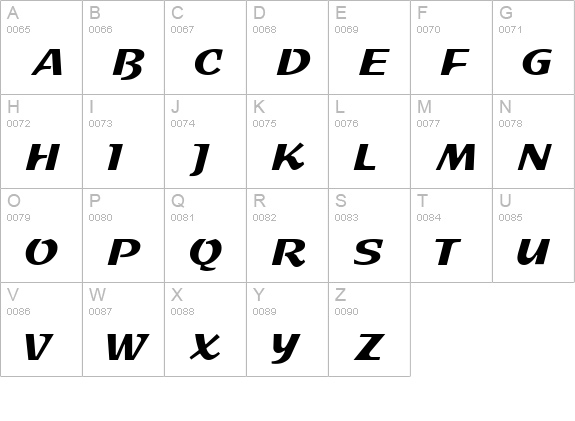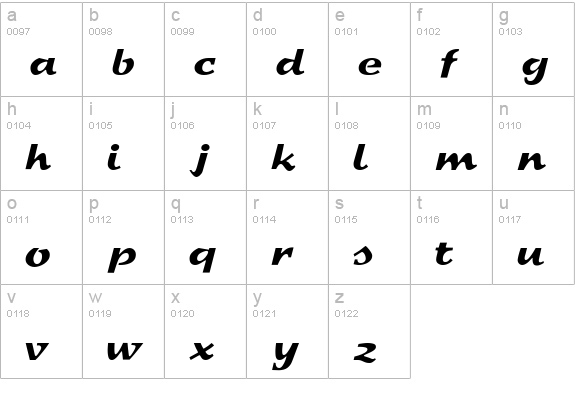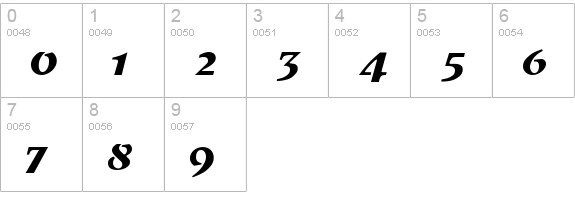
Decca Display SSi Font Details
Decca Display SSi font is a modern and stylish typeface that exudes sophistication and elegance. With its sleek lines and bold characters, this font is perfect for creating eye-catching designs and captivating headlines. Whether you're working on a branding project, advertising campaign, or website design, Decca Display SSi font will make a statement and leave a lasting impression. The best part is that Decca Display SSi font is completely free to download at FontsMarket.com. This means you can enhance your design projects without any extra cost or hassle. Don't miss out on this fantastic opportunity to elevate your work with the stunning Decca Display SSi font. Download it now and start creating beautiful designs today!